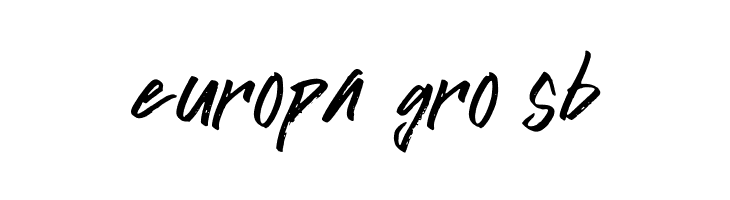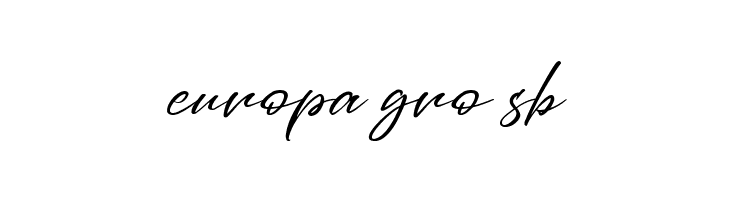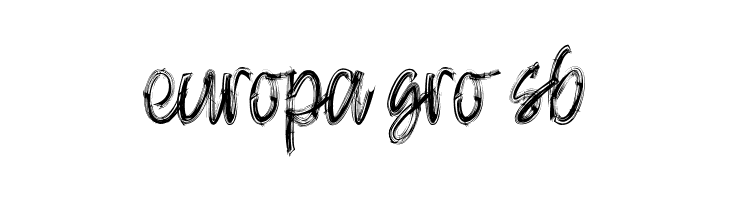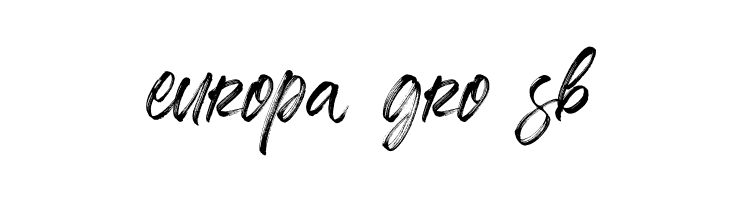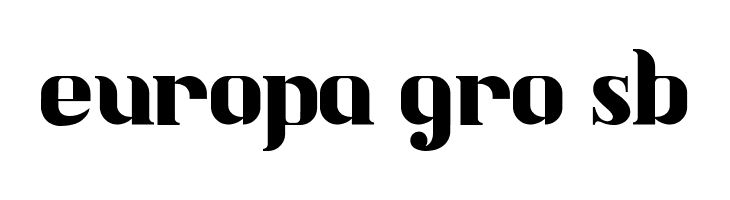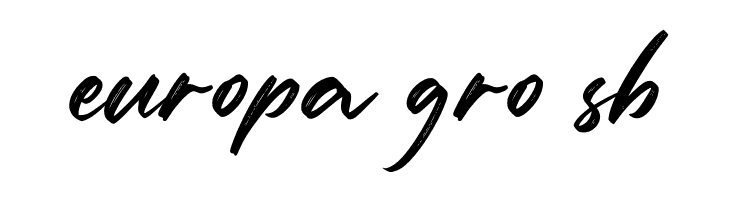
A bold, expressive brush-style font with a dynamic, handwritten appearance.
A flowing, cursive font with elegant, sweeping strokes.
A bold, flowing script font with a handwritten style.
A dynamic brush-style font with expressive, hand-drawn strokes.
A dynamic, angular font with a forward-leaning, fluid design.
A bold, slanted font with a geometric, futuristic style.
A bold, sketch-like font with a dynamic, hand-drawn appearance.
A dynamic brush script font with fluid, expressive strokes.
A bold, modern font with sharp angles and smooth curves, ideal for impactful designs.
A bold, expressive script font with a modern, handwritten style.